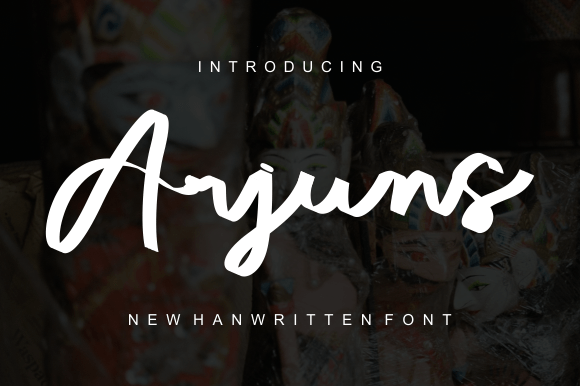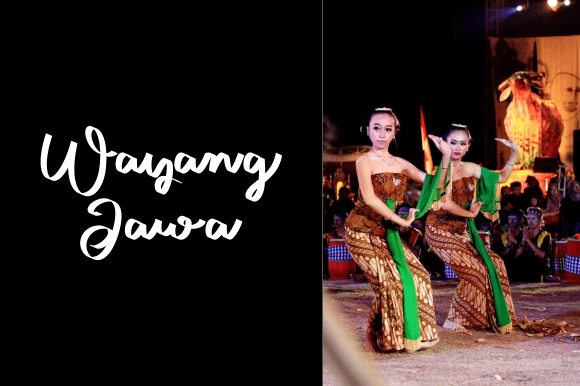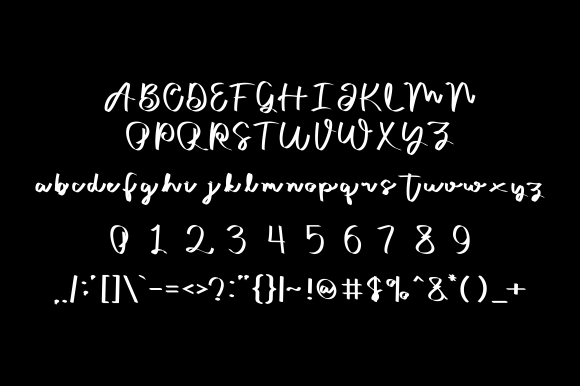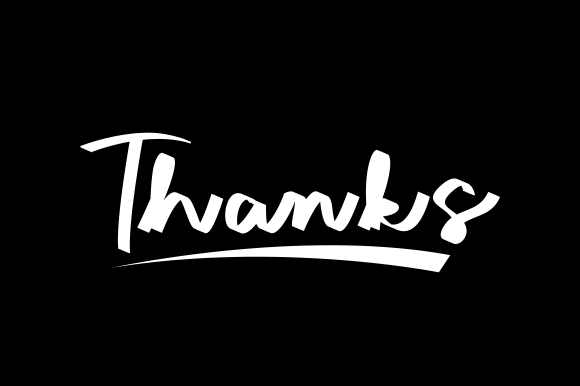
Arjuns Font
About Arjuns Font
Introducing Arjuns, a natural and charming handwritten font that brings a distinctive touch to your designs. With its unique and pretty characters, Arjuns flows endlessly, creating an original appearance on every item it graces.
The natural and charming qualities of Arjuns make it a versatile choice for a variety of design projects. The handwritten style adds a personal and authentic feel, making it suitable for a wide range of applications.
Whether you’re working on branding, product packaging, social media graphics, invitations, or any other creative endeavor, Arjuns ensures that your text stands out with its natural and charming aesthetic. Each character in this font contributes to an overall original appearance, making your design truly one-of-a-kind.
Arjuns is not just a font; it’s a creative tool that enhances the visual appeal of your work. Its flowing characters add a touch of elegance, making it perfect for projects where a charming and natural vibe is desired.
Embrace the uniqueness of Arjuns in your design projects, and let it be the element that infuses your creations with a charming and handwritten allure. Whether on printed materials or digital platforms, Arjuns brings a natural and original feel to every item it graces.